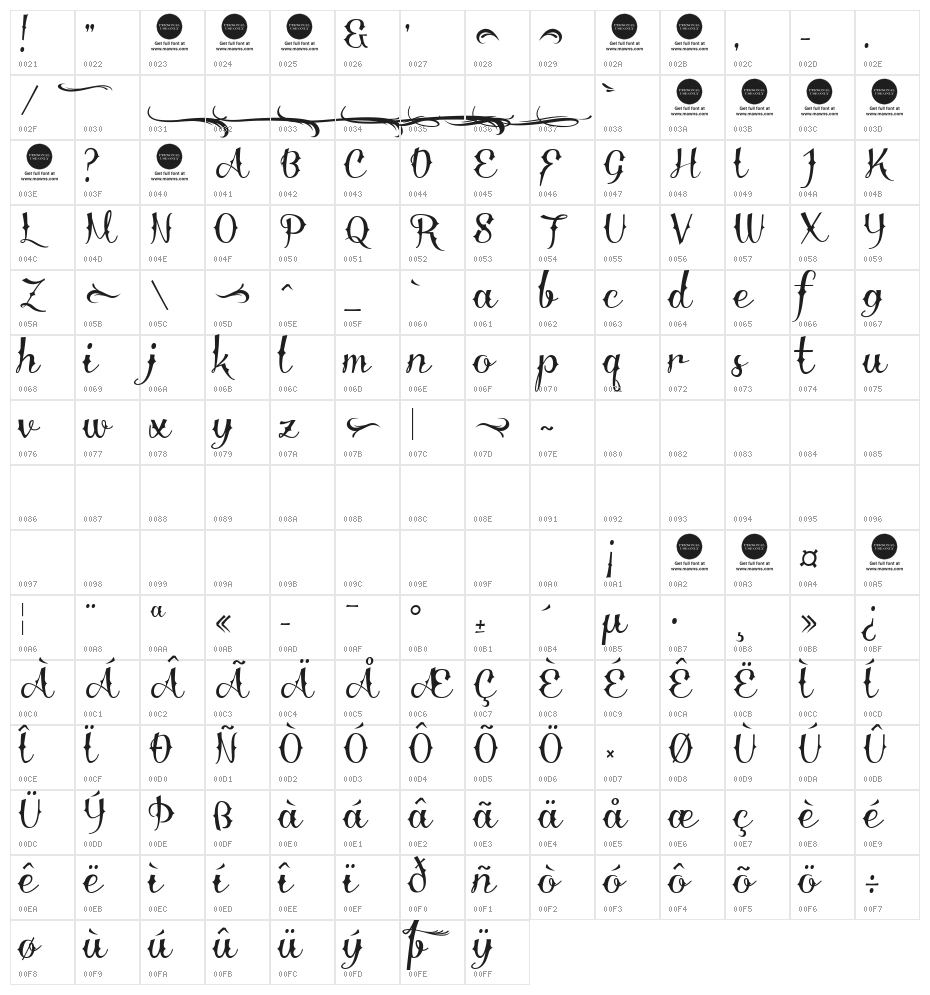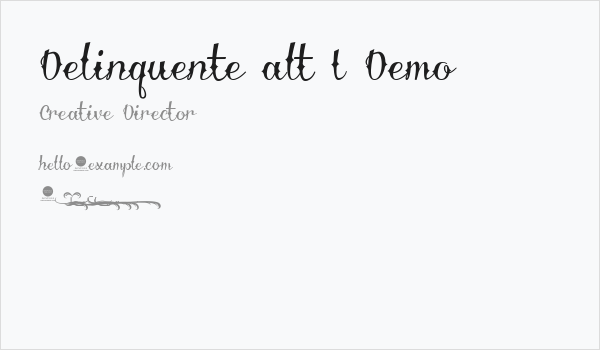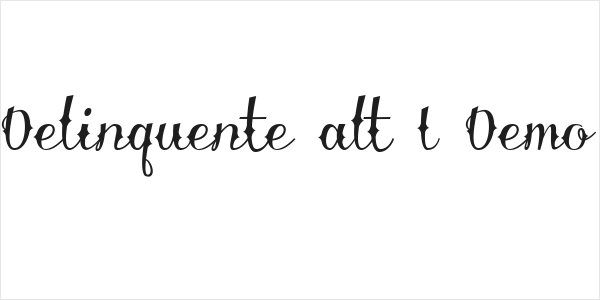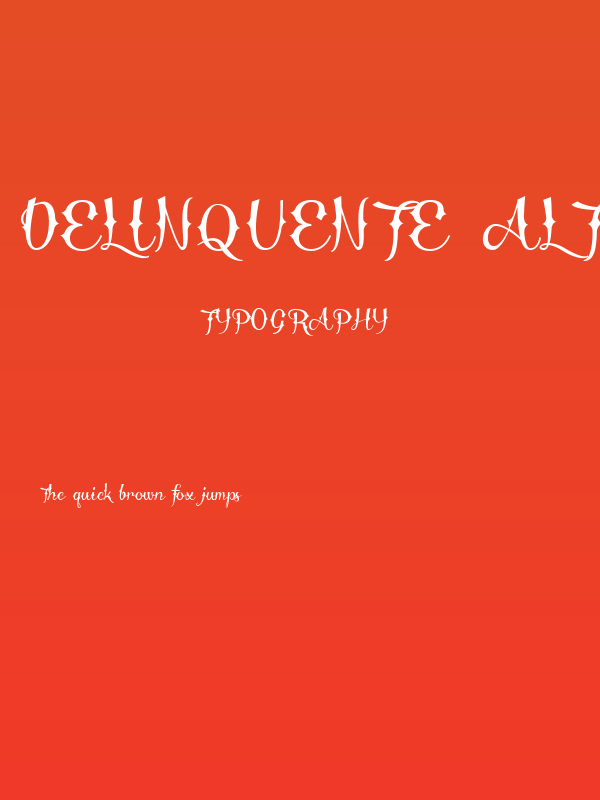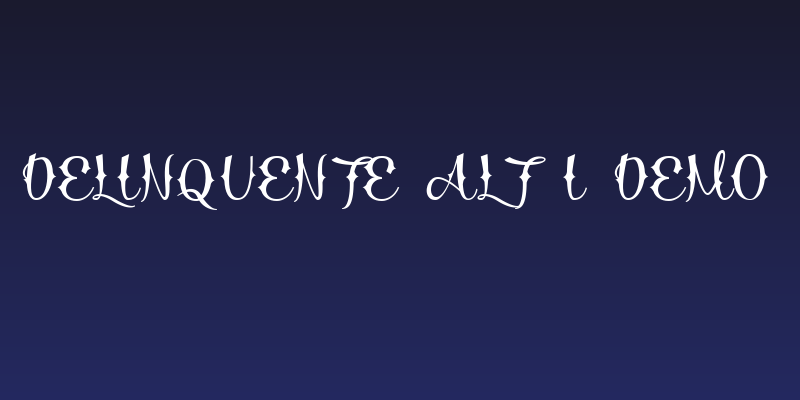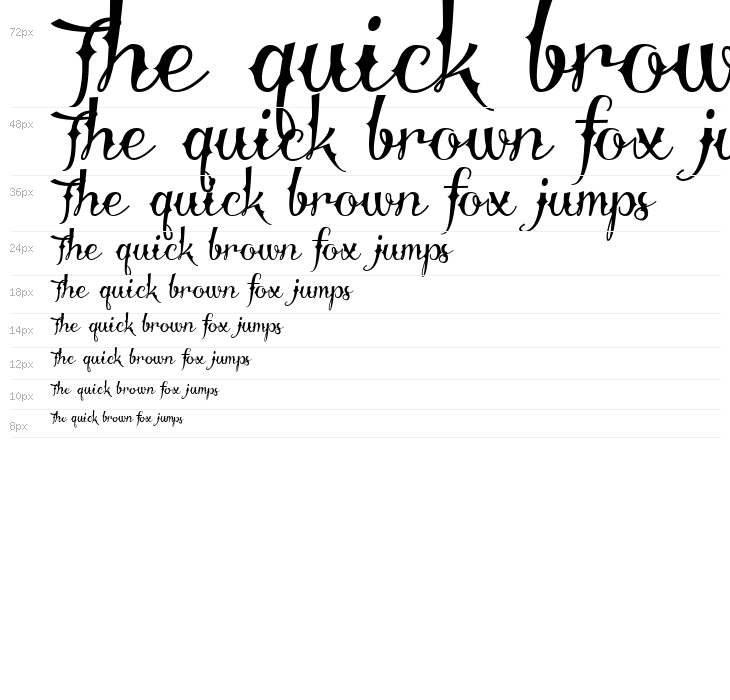
Delinquente alt I Demo Font
Delinquente alt I Demo Description
This font features an elaborate and artistic design, characterized by its flowing, calligraphic style. The uppercase letters exhibit a dramatic flair with extended strokes and intricate curves, giving it a distinct and ornamental appearance. The lowercase letters maintain a consistent style, with elegant loops and swashes that enhance its decorative nature. The numerals and special characters are crafted with the same attention to detail, ensuring a cohesive look across all elements. This font is ideal for projects that require a touch of sophistication and artistic expression.
| Use Case | Logos, Invitations, Artistic Projects |
| Proposed Projects | Ideal for wedding invitations, branding, logo design, and artistic posters. |